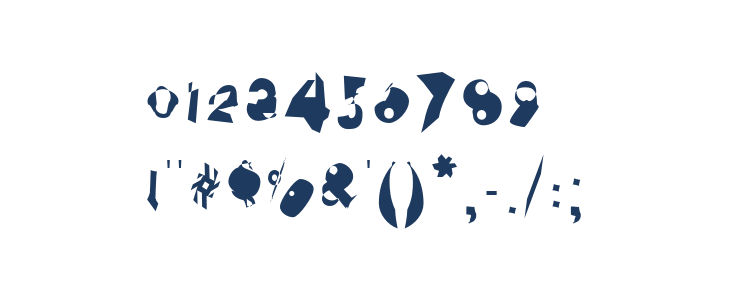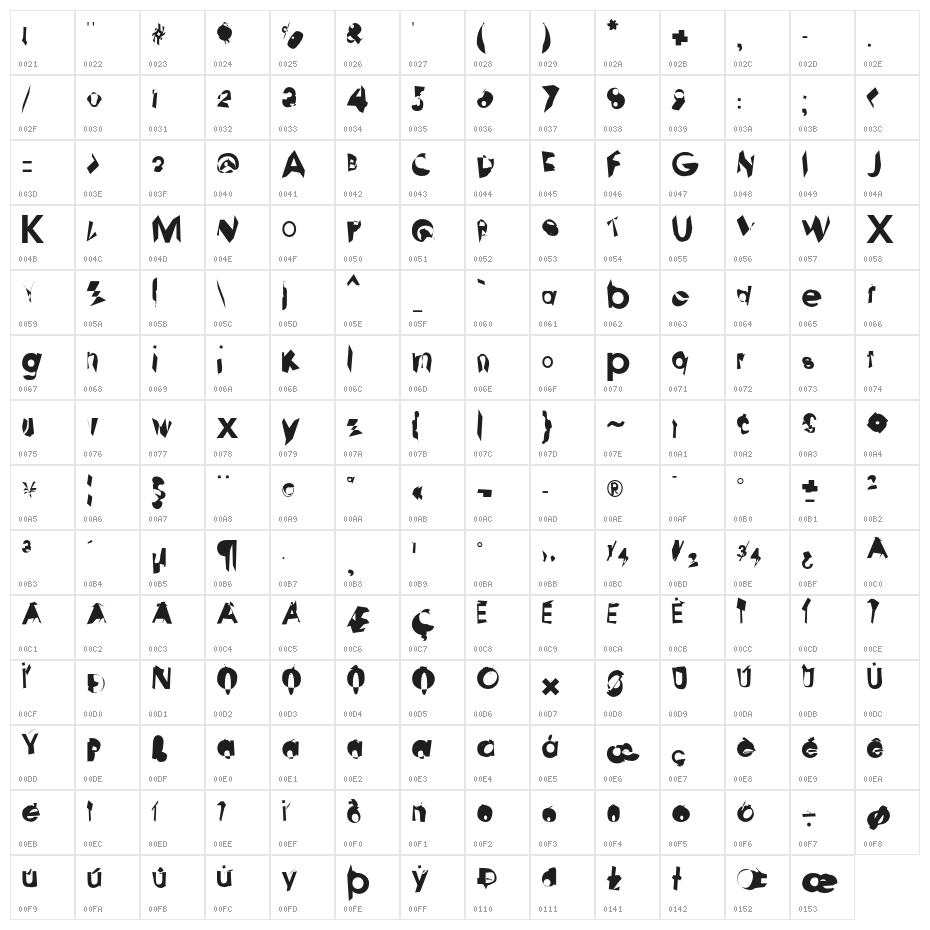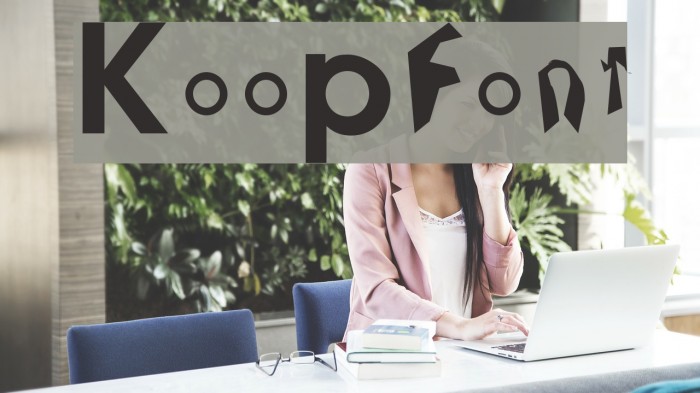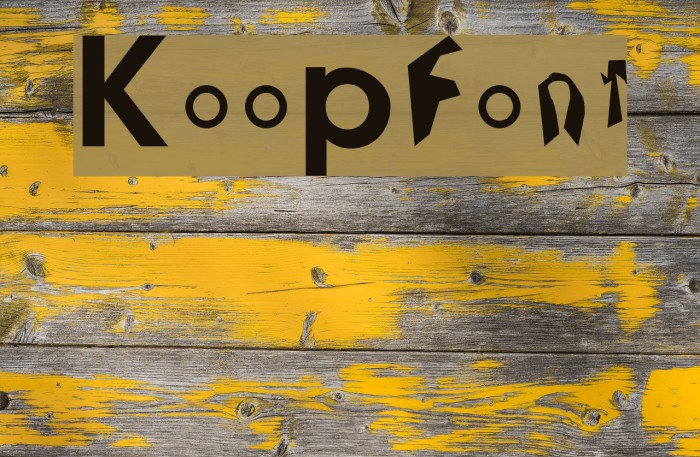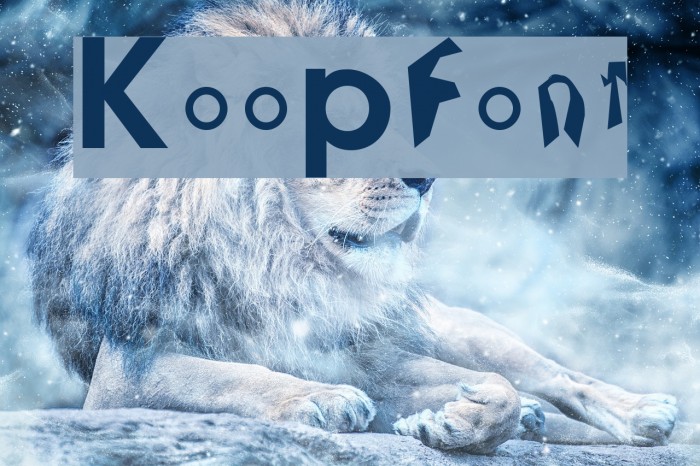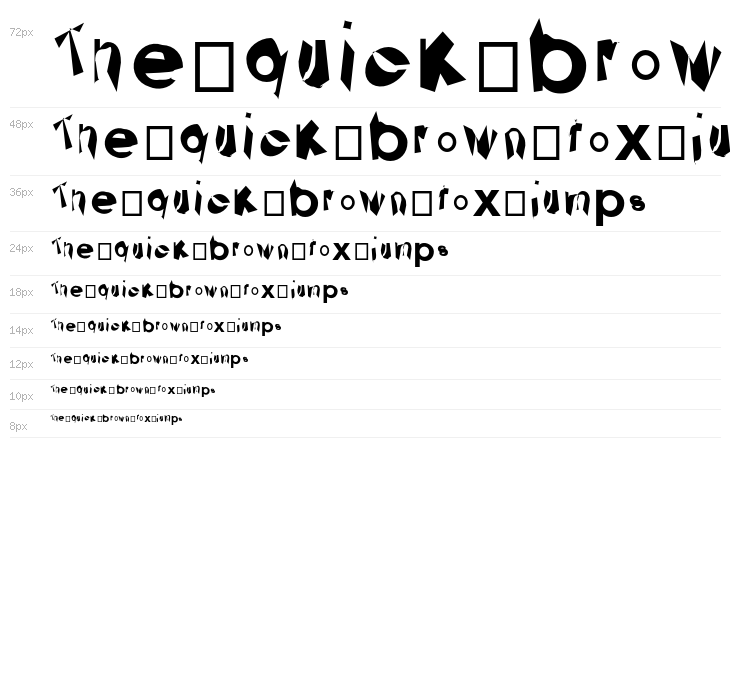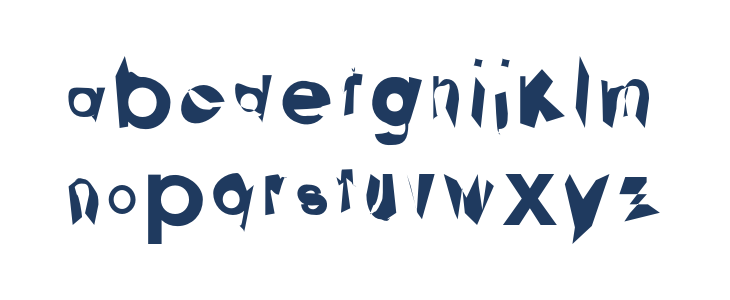
Koop Font
Koop Description
This font features a highly distinctive and abstract design, characterized by irregular shapes and fragmented forms. Each character appears as if it has been cut or torn, creating a dynamic and edgy aesthetic. The letters are bold and impactful, with varying stroke thickness that adds to the chaotic yet artistic feel. The font maintains a consistent height across characters, but the unconventional shapes give it a unique rhythm and flow. This style is particularly eye-catching and would stand out in any design project.
| Proposed Projects | Ideal for avant-garde posters, album covers, or any project seeking a bold, artistic statement. |